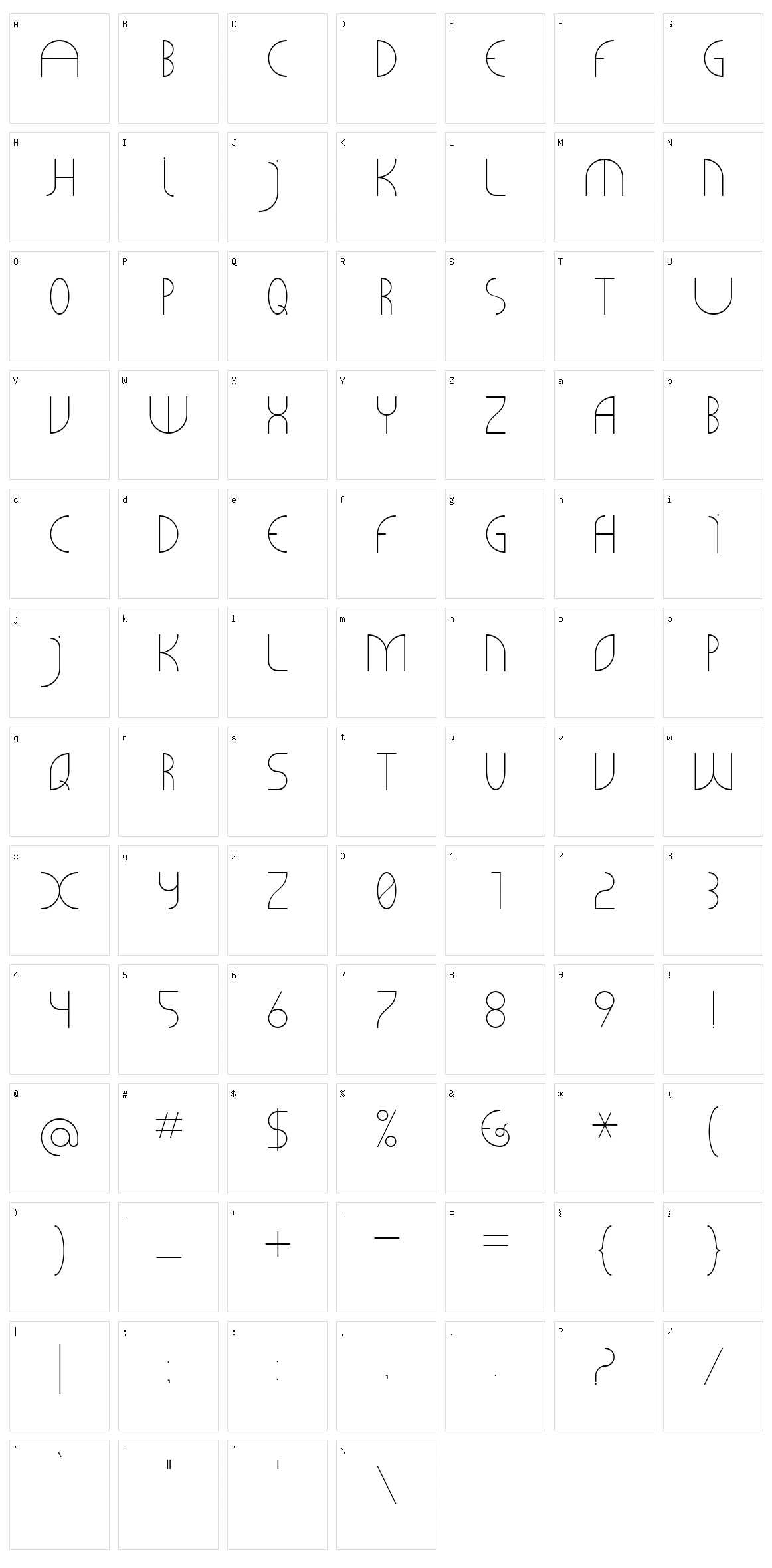
Font CLiCHE 21 .
This font has two styles: Regular and Italic, it owns alternate characters in the lowercase. The font is kerned.
Them both: CLiCHE 21 and CLiCHE 21 Italic were designed by Paulo R in 2013. Please keep it MINE and enjoy!